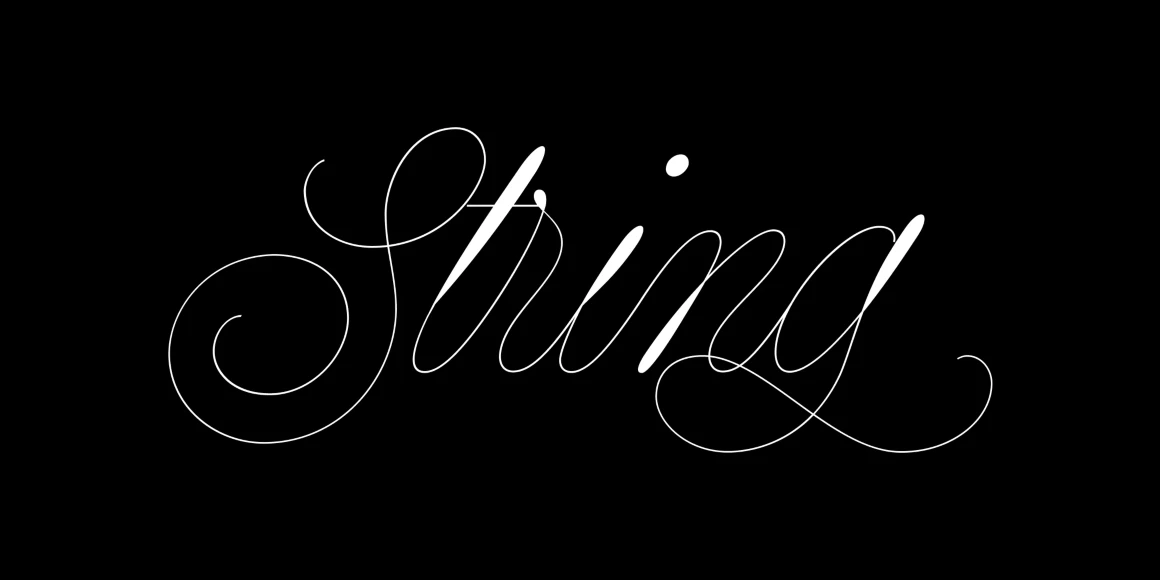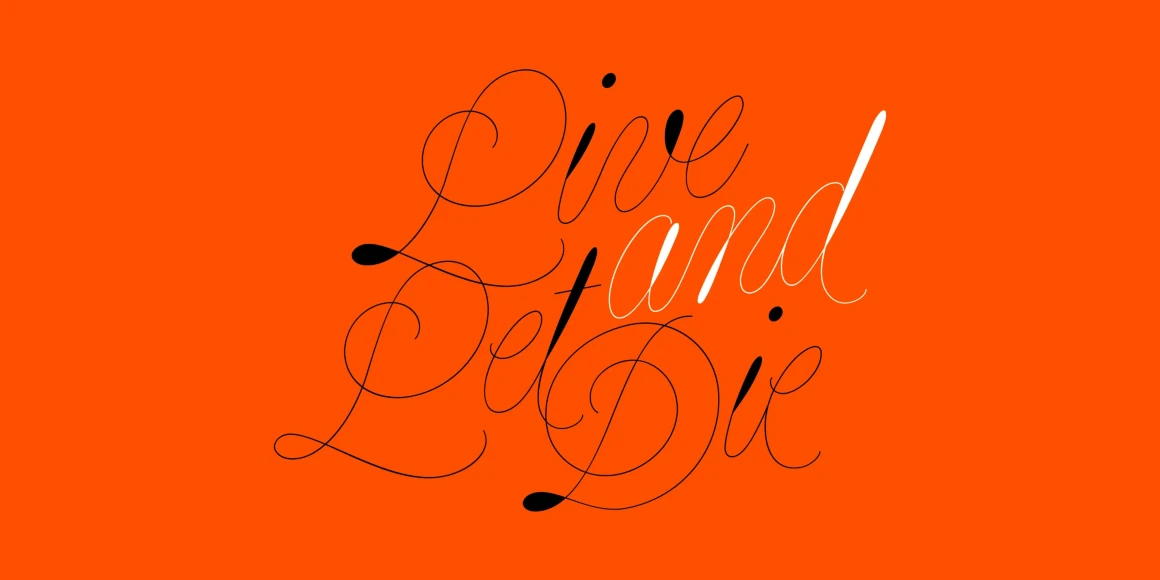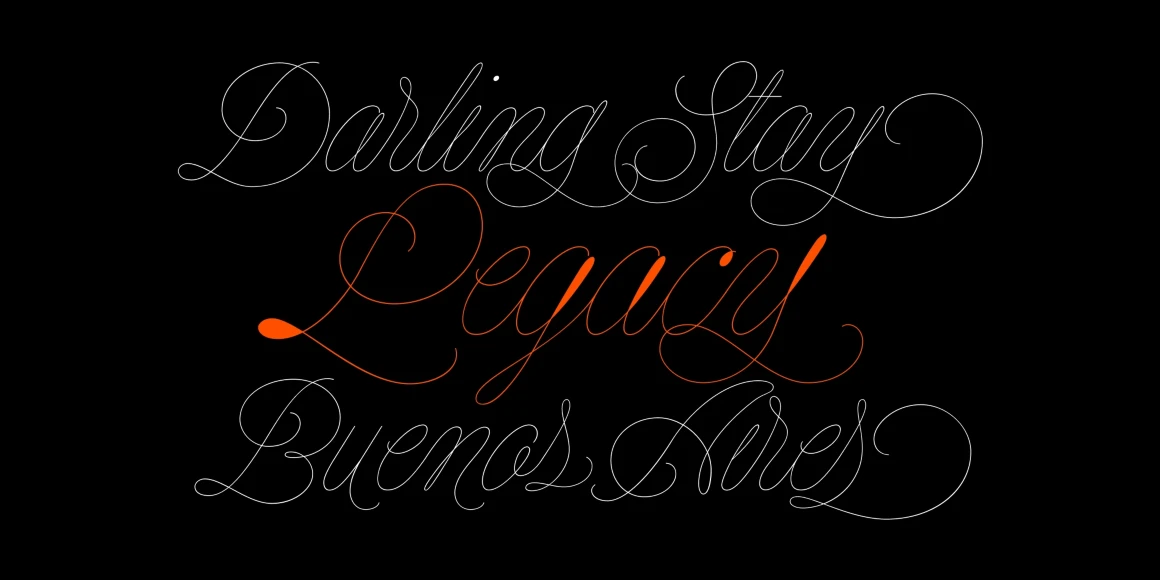
String
From Sproviero Type
String is a monoline script full of melodic grace — elegant, flowing, and impossibly airy. Inspired by Spencerian forms, harp strings, and the sound of an acoustic guitar, it weaves delicate curves into continuous, lyrical strokes. Use String Line, or the daring String Hole, to add contrast or rhythm. Perfect for display typography! Used in magazine spreads, luxury packaging, fashion advertisements, and even layered over photography, String brings softness, structure, and subtle musicality.
Designed by Maximiliano Sproviero
String Hole
String Line
Initial Forms
Final Forms